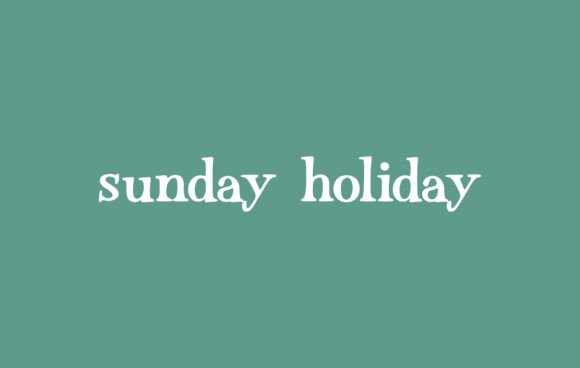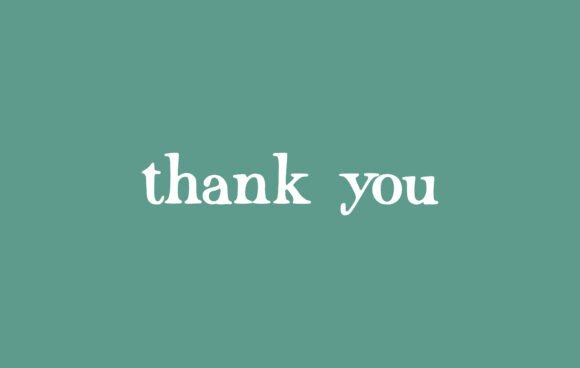
Introduction to Ryland Font
Do you remember the rush of excitement you felt when you stumbled upon the perfect design resource for your creative project? For many of us, that moment is a defining experience in our design journey. It’s the moment when all the pieces come together, and our vision starts to take shape. For designers seeking that special something, the Ryland Font is an authentic handwritten font with a romantic touch that can elevate their work to new heights.
Expertly designed to be a true favorite, this font has the potential to take your creative ideas to the highest level. With its legibility and versatility, it looks great as a title or body text, making it a valuable addition to any designer’s toolkit.
Key Features of Ryland Font
- High-quality, professional font design suitable for various creative projects
- Features a modern, elegant design with a unique character set, making it perfect for logos, headings, and titles
Honest Review: Ryland Font
As a designer, I’m always on the lookout for high-quality design resources to elevate my creative projects. Recently, I had the chance to try out the Ryland Font, and I must say, it’s a great addition to any design arsenal.
- ✨ Beautiful, modern design that’s perfect for a variety of creative projects
- ⚠️ Limited character set, which may not be suitable for long-form content
- ⚠️ Not all versions of the font are available in bold or italic weights
Overall, I’m impressed with the Ryland Font. Its modern design and high-quality files make it a great choice for designers working on creative projects. While it may not be perfect, it’s definitely worth considering for your next design project.
Use Ryland Font on a transparent background to create a seamless design. Experiment with different font sizes and styles to add visual interest to your project. With its high-quality design and versatility, Ryland Font is a valuable addition to any design resource library.
Ryland Font is ideal for creating social media graphics, presentations, and marketing materials. Its modern and elegant design makes it perfect for a wide range of creative projects, from logos to brochures.